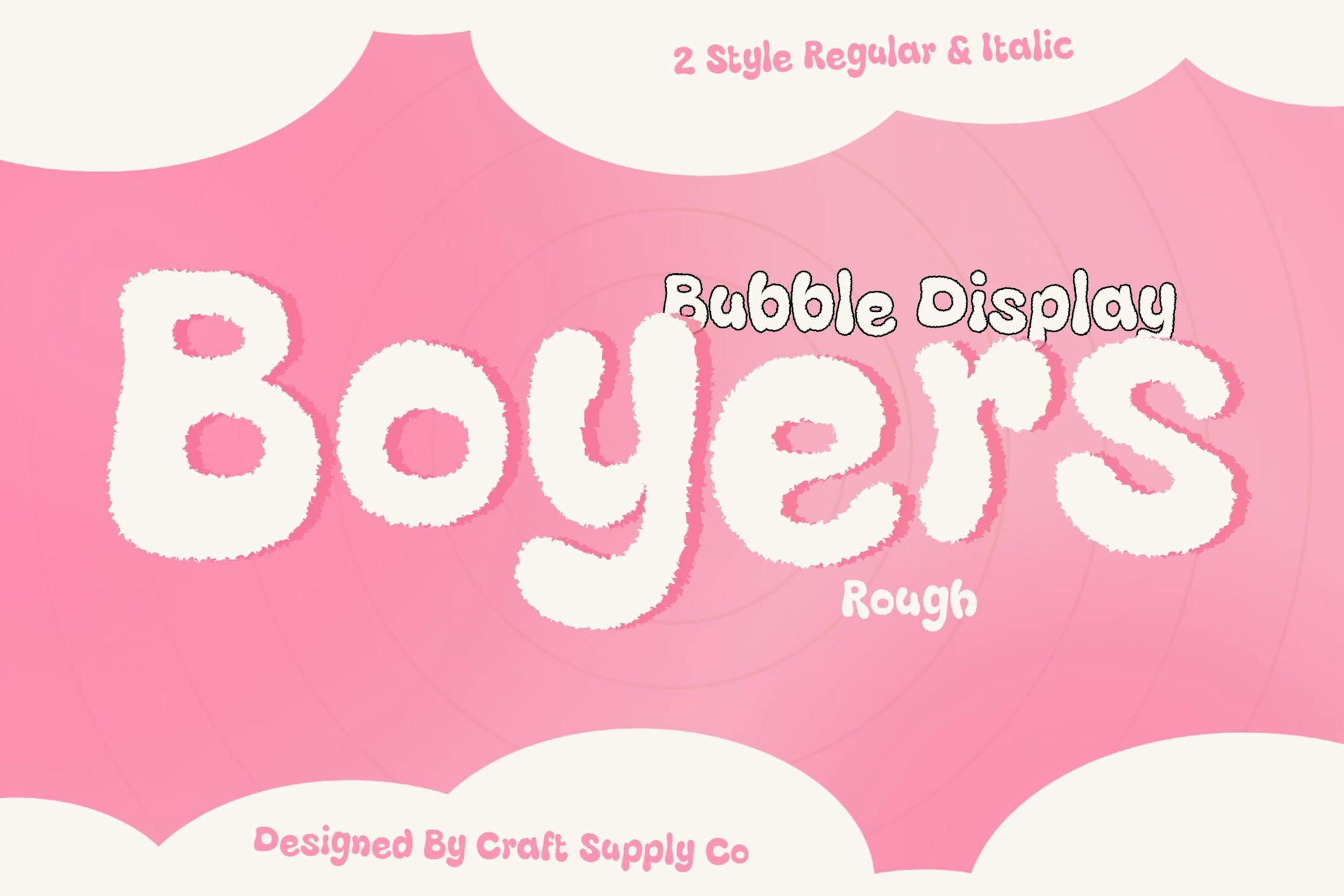
Boyers Rough Font
Perfect for rugged branding, outdoor apparel, vintage posters, music event flyers, packaging, and social media design.
The Boyers Rough Font excites designers with its bold, textured brush strokes and distressed look that adds a raw, authentic feel to any creative project.
The Boyers Rough Font Free Download is a powerful typeface designed to bring a gritty, handcrafted vibe to your designs. Its rough edges and dynamic texture create a striking visual impact ideal for brands that want to convey strength, adventure, and creativity. Whether you’re designing outdoor gear branding, music festival posters, or vintage-inspired packaging, Boyers Rough delivers bold personality.
One of the key strengths of Boyers Rough Font is its balance between roughness and readability. Despite its distressed texture, the font maintains clarity and works well for headlines, logos, and display text, ensuring your message is communicated effectively.
In branding, Boyers Rough conveys authenticity, durability, and artistic flair. It pairs beautifully with earthy tones, natural textures, and rugged imagery, helping brands establish a strong connection with their audience.
For digital use, Boyers Rough enhances social media visuals, website banners, and promotional materials with its textured, bold style. Its distinctive look helps your digital content stand out with character and originality in competitive online spaces.